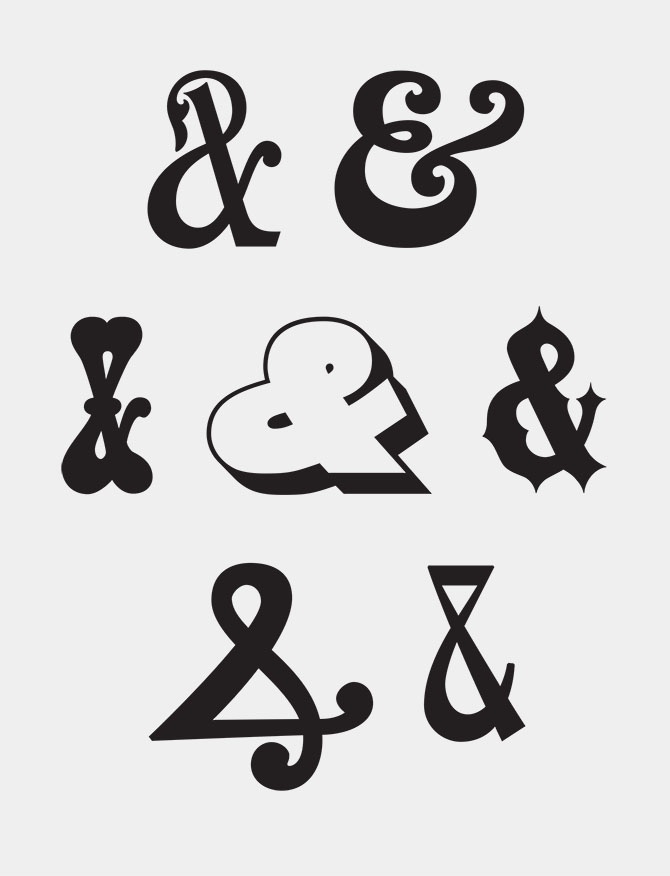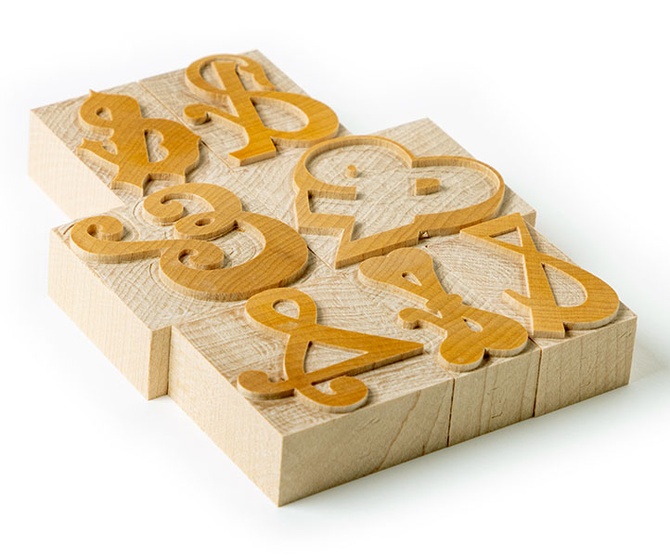
Ampersand Collection No. 3
The ampersand is much loved by type aficionados. Besides being a visual representation of "and," the ampersand letterform adds an element of beauty to any printed piece. These seven 12-line ampersands were expressly chosen for their variety and flexibility. All of these Ampersand were created by James Grieshaber of TypeCo.